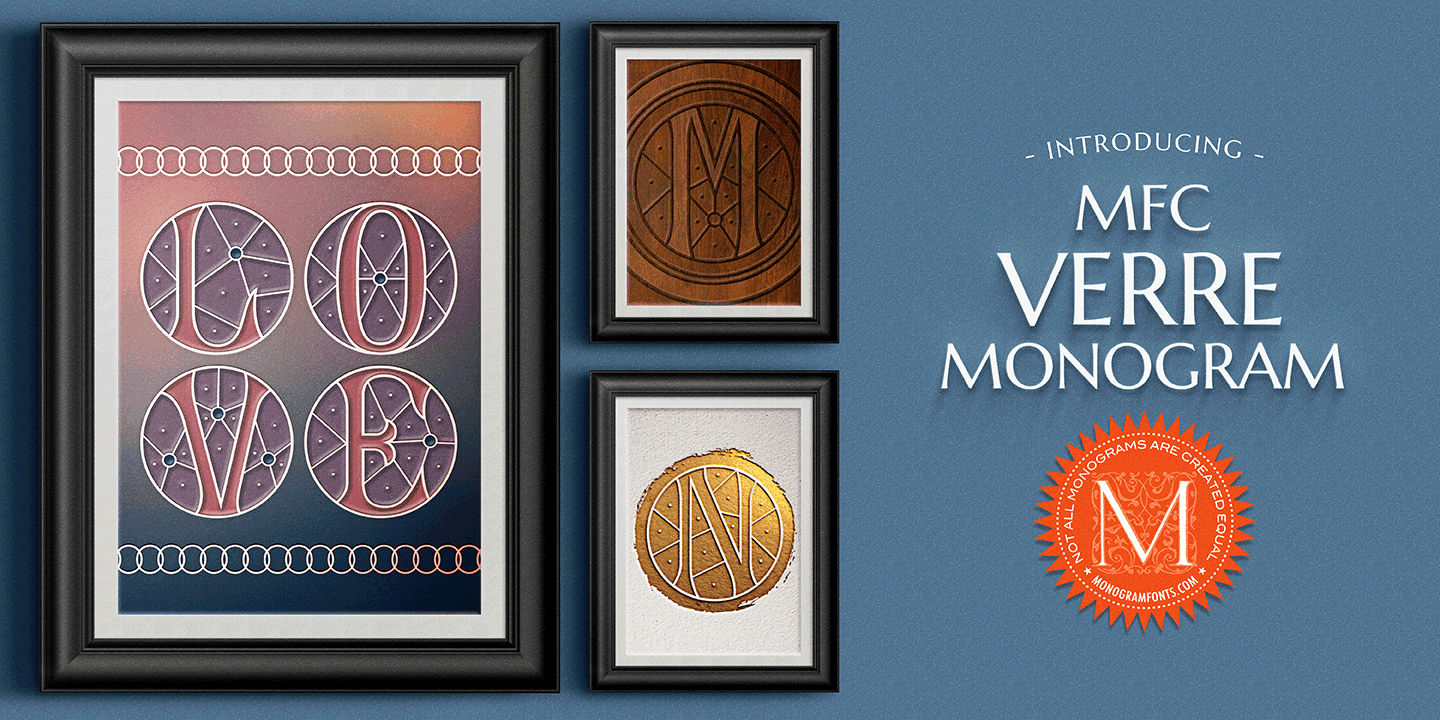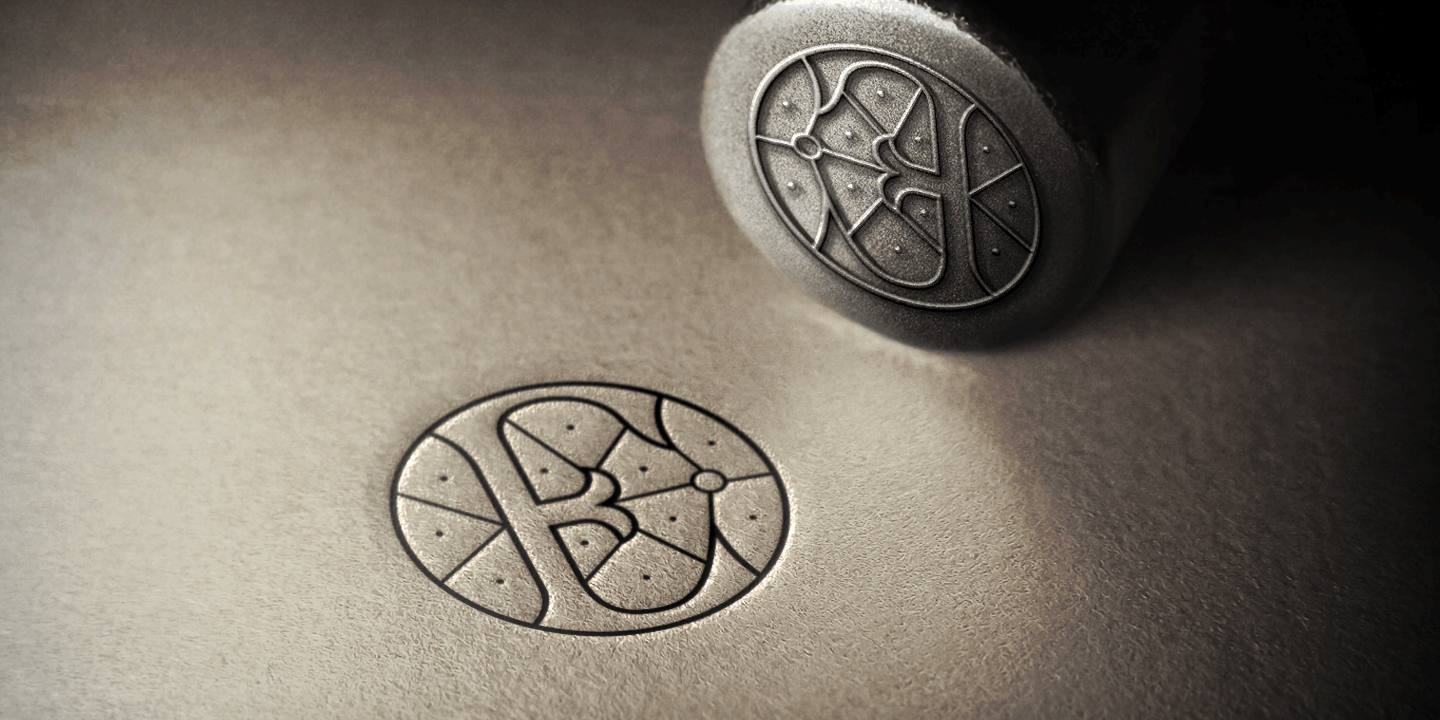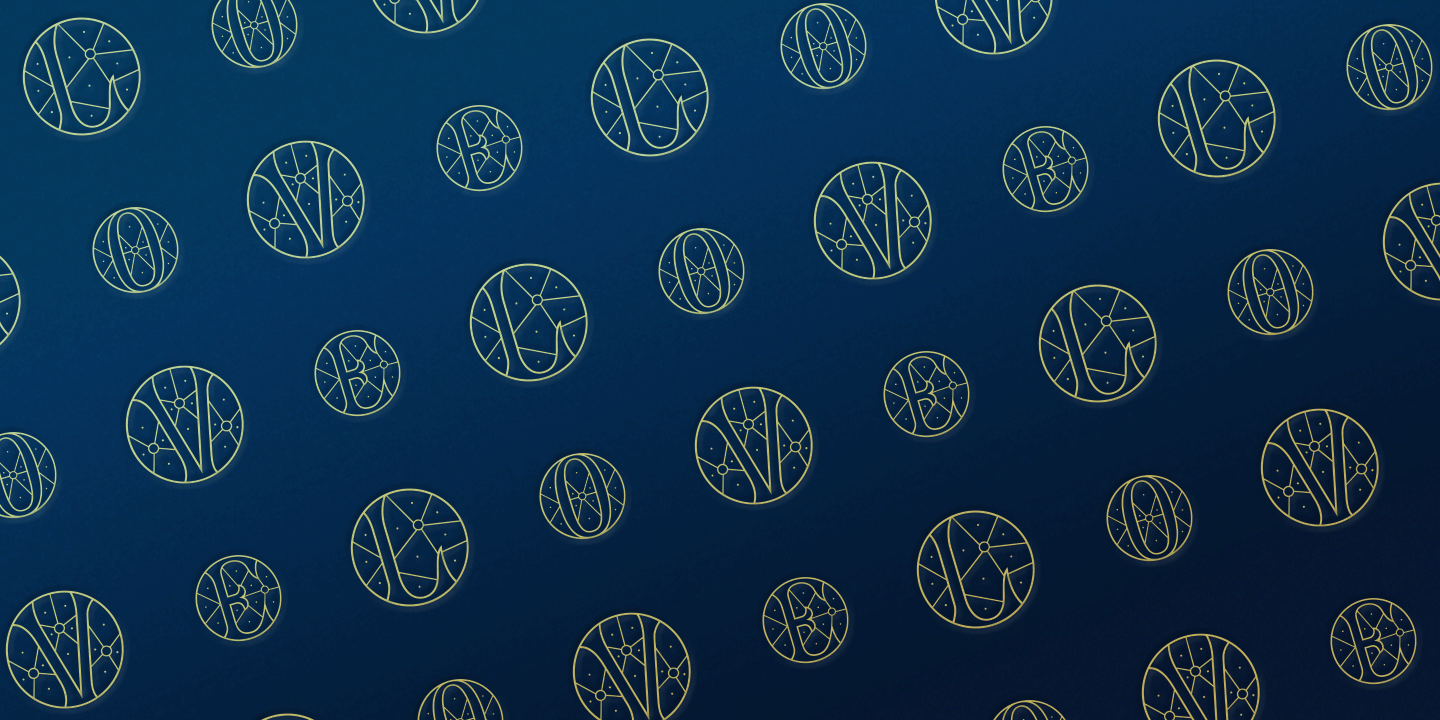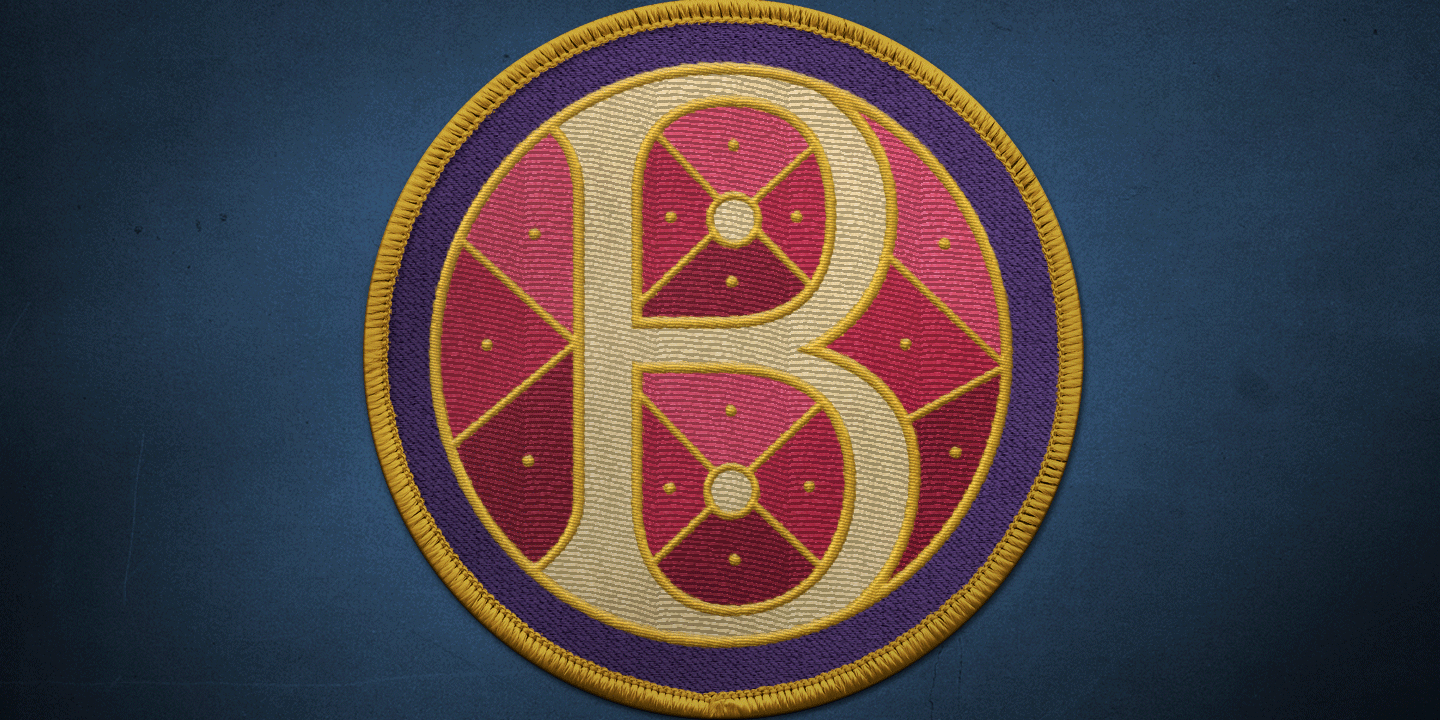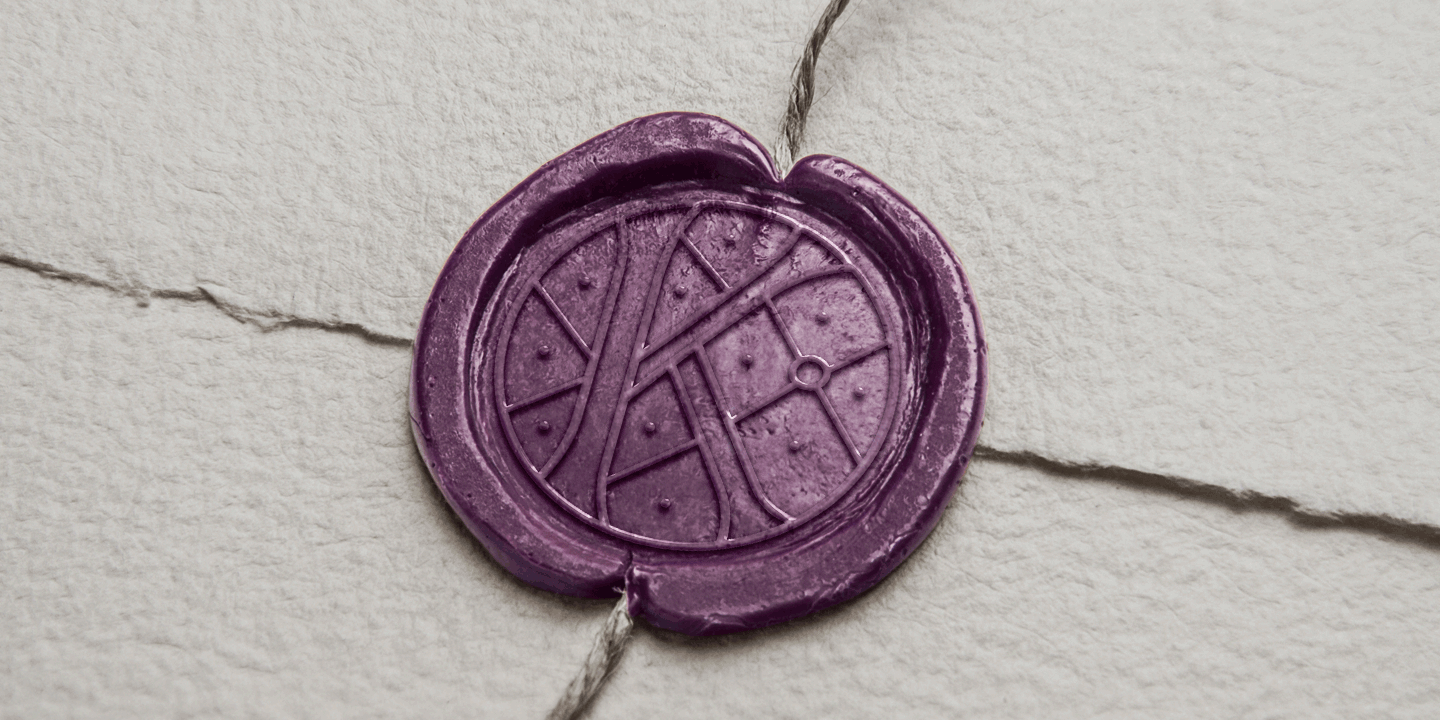
MFC Verre Monogram
Font Family by Monogram Fonts Co
The inspiration source for Verre Monogram is an unusual hand-drawn letterset from a vintage embroidery publication which comes off more as a Drop Cap or Initial lettering style than monogram. Although its original intention is uncertain, it has many possibilities. This monogram design from the early 1900's has been updated from a Capitals only to a Caps/Smallcaps set with decorative linking ornamentation. The unique stained glass look of the letterforms allows for a lot of play with manual coloring, and the newly created linking ornaments offer interesting bracelet monogram design options.